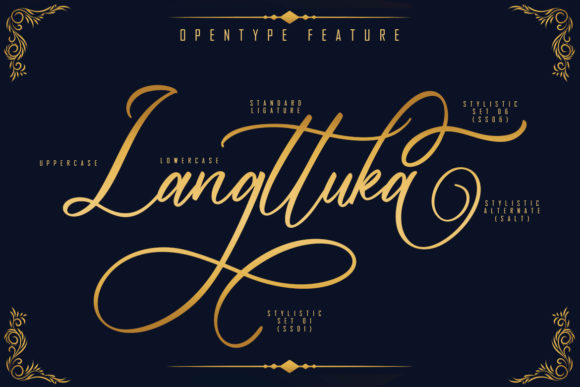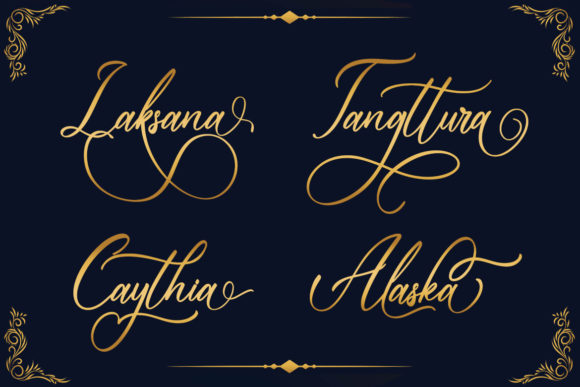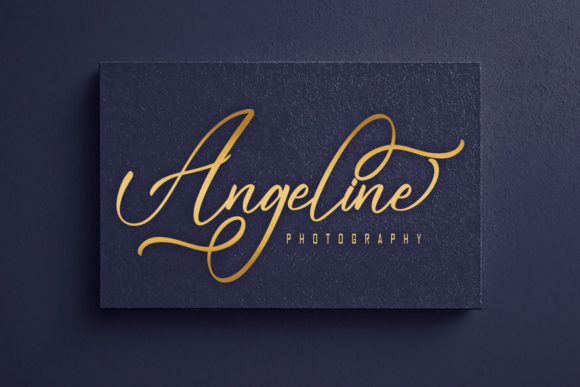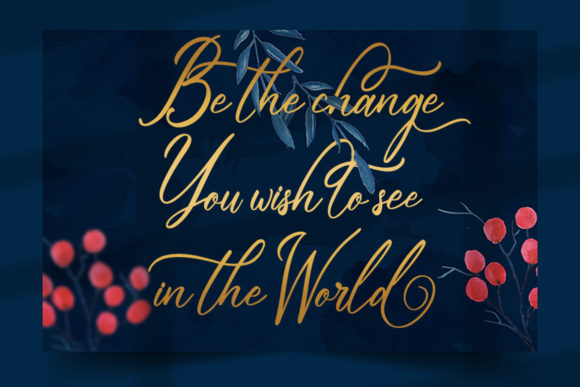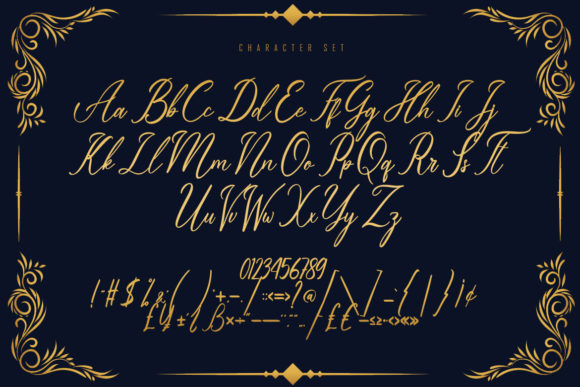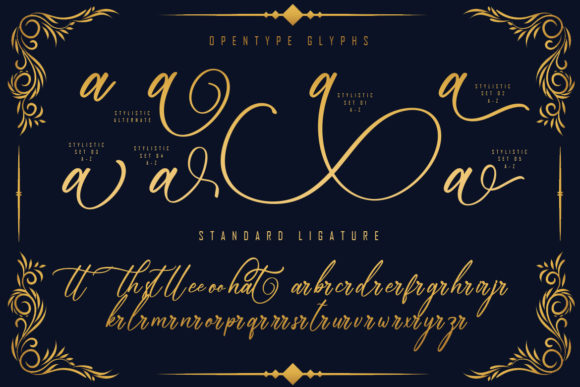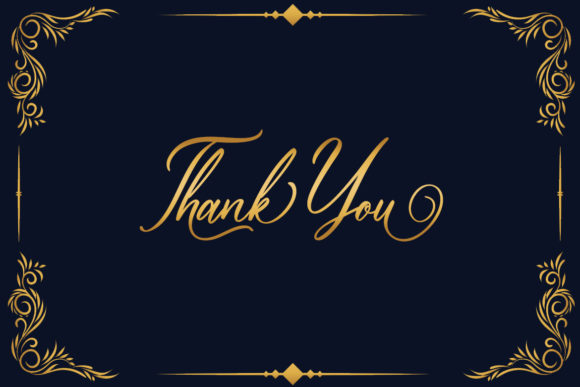
Fallinghat Font
About Fallinghat Font
Fallinghat is a stylish and elegant script font. Fall for its ravishing style and use it to create gorgeous designs.